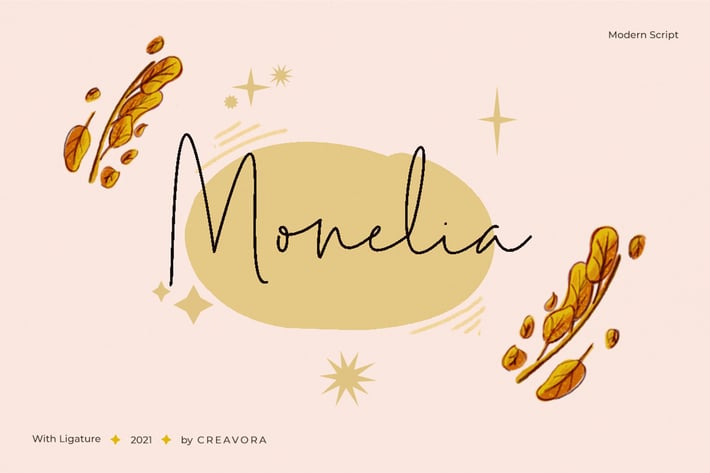
Monelia - Handwriting Script Font
Introducing Monelia - Handwriting Script Font
Here's another awesome font that you can use for your project. Introducing, Monelia modern script. A lovely modern script that's perfect for invitations, branding, quotes, and more projects.